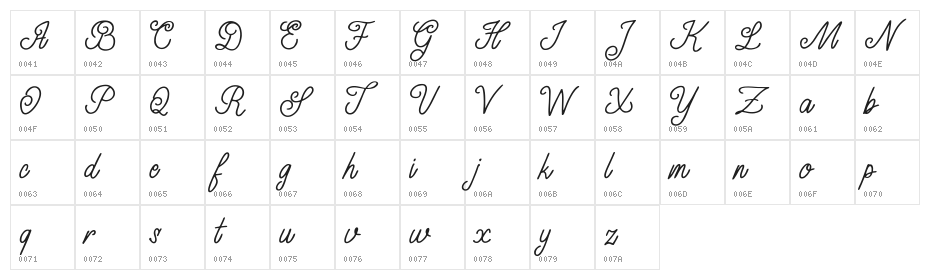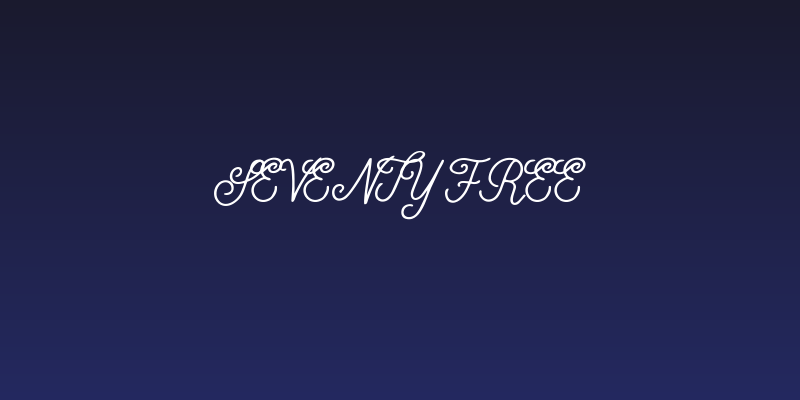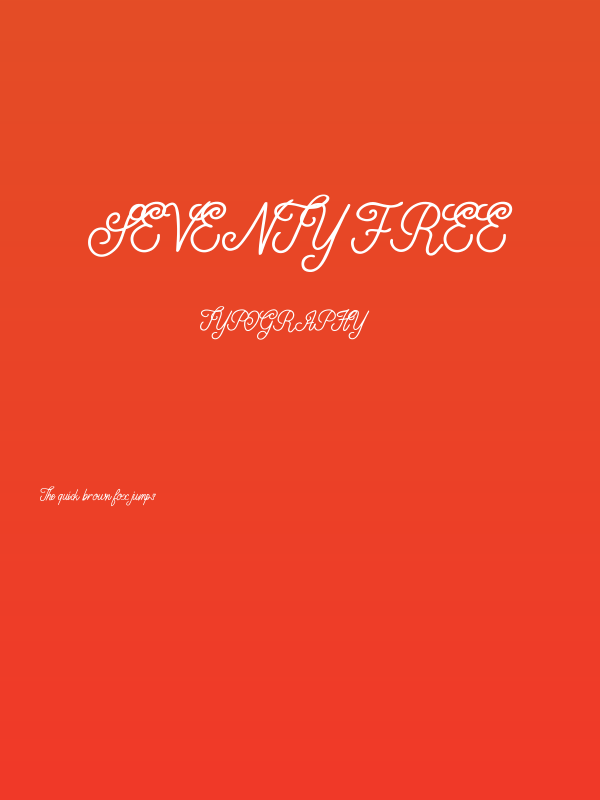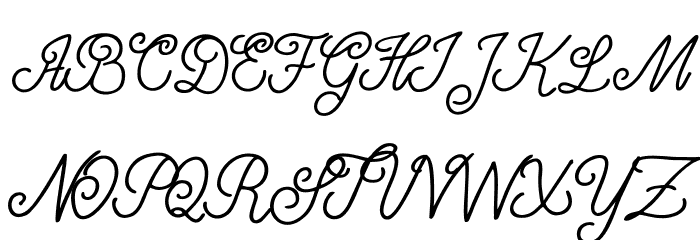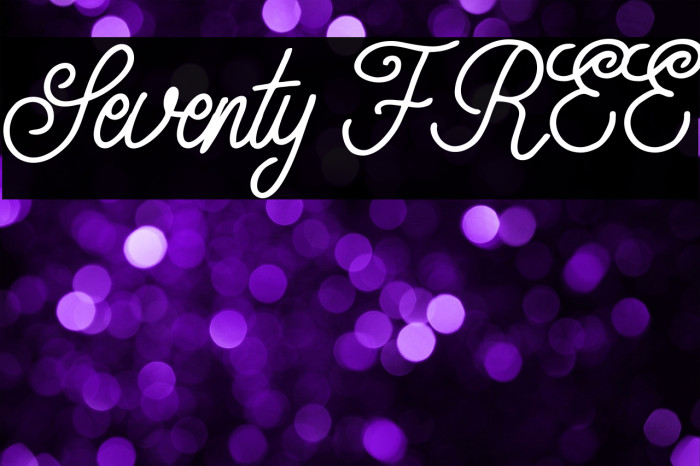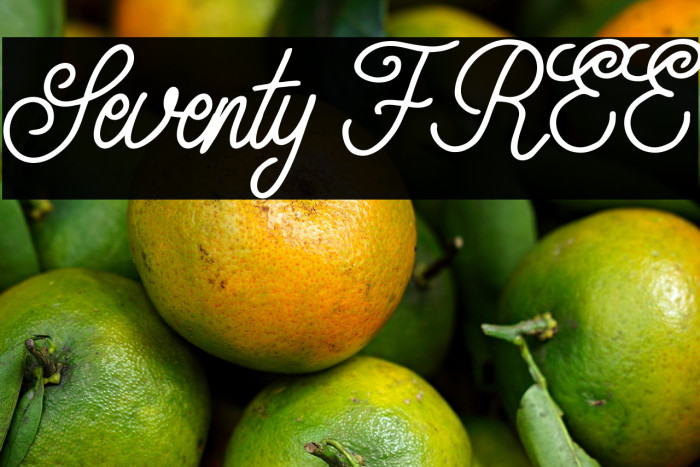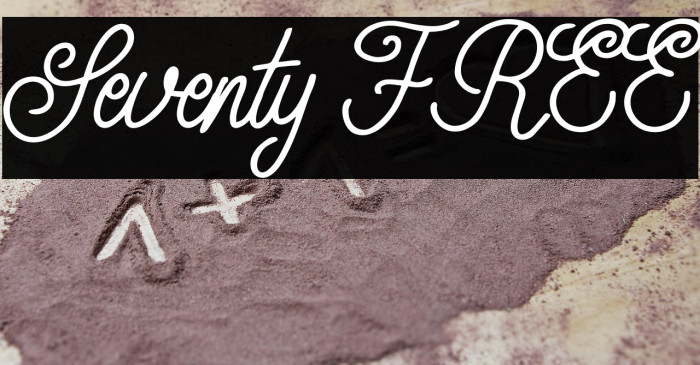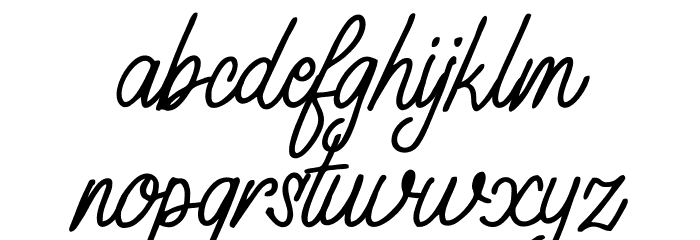
Seventy FREE Font
Seventy FREE Description
This elegant script font features flowing, cursive letters with a classic and sophisticated style. The uppercase letters are adorned with graceful loops and swirls, giving them a decorative flair. The lowercase letters maintain a smooth and connected appearance, enhancing the font's fluidity. The characters are well-balanced, with a consistent stroke width that adds to the font's readability. This font is ideal for projects that require a touch of elegance and refinement, such as invitations, greeting cards, and branding materials. Its timeless appeal makes it suitable for both modern and traditional designs.
| Use Case | Headlines, Invitations, Branding |
| Proposed Projects | Ideal for wedding invitations, greeting cards, branding, and elegant signage. |